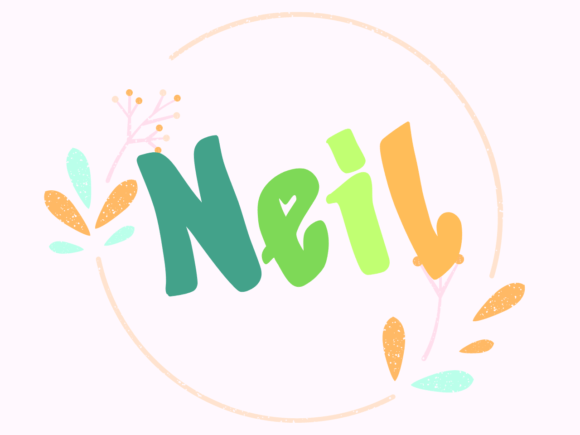
In a world where conformity suffocates creativity, we present Neil Font – a script font family that shatters the mundane and ignites your designs with its captivating, handwritten charm. Crafted by the visionary Pukka De, Neil Font is a testament to the transformative power of individuality, inviting you to paint your words with a brushstroke of uniqueness.
Neil Font's essence lies in its ability to make your letters dance, to infuse them with a soul that speaks volumes. Its carefully crafted glyphs, inspired by the nuances of handwriting, bring an organic touch to your digital creations, making them resonate with authenticity and warmth. With Neil Font, your designs transcend the ordinary, becoming expressions of your own artistic flair.
Whether you're a seasoned designer seeking to elevate your projects or a creative mind yearning to leave an unforgettable mark, Neil Font is your ultimate companion. Its versatility knows no bounds, effortlessly adapting to a myriad of design endeavors. From branding projects that demand a touch of elegance to social media posts that crave a dash of personality, Neil Font seamlessly blends into your vision, amplifying your message with its magnetic charm.
Dive into a world of endless possibilities with Neil Font. Let your imagination run wild as you craft logos that exude sophistication, flyers that capture attention, and invitations that leave a lasting impression. Neil Font's organic flow adds a touch of artistry to every project, transforming the mundane into the magnificent.
But Neil Font is more than just a font; it's an experience. It's a journey into the realm of self-expression, where your creativity takes center stage. As you glide through the spectrum of its characters, you'll discover a symphony of emotions, a kaleidoscope of colors, and a universe of stories waiting to be told.
So, embrace the allure of Neil Font, let your imagination soar, and prepare to witness the metamorphosis of your designs. Unleash the power of individuality, paint your words with the brushstroke of creativity, and let Neil Font guide you on a journey of artistic liberation.